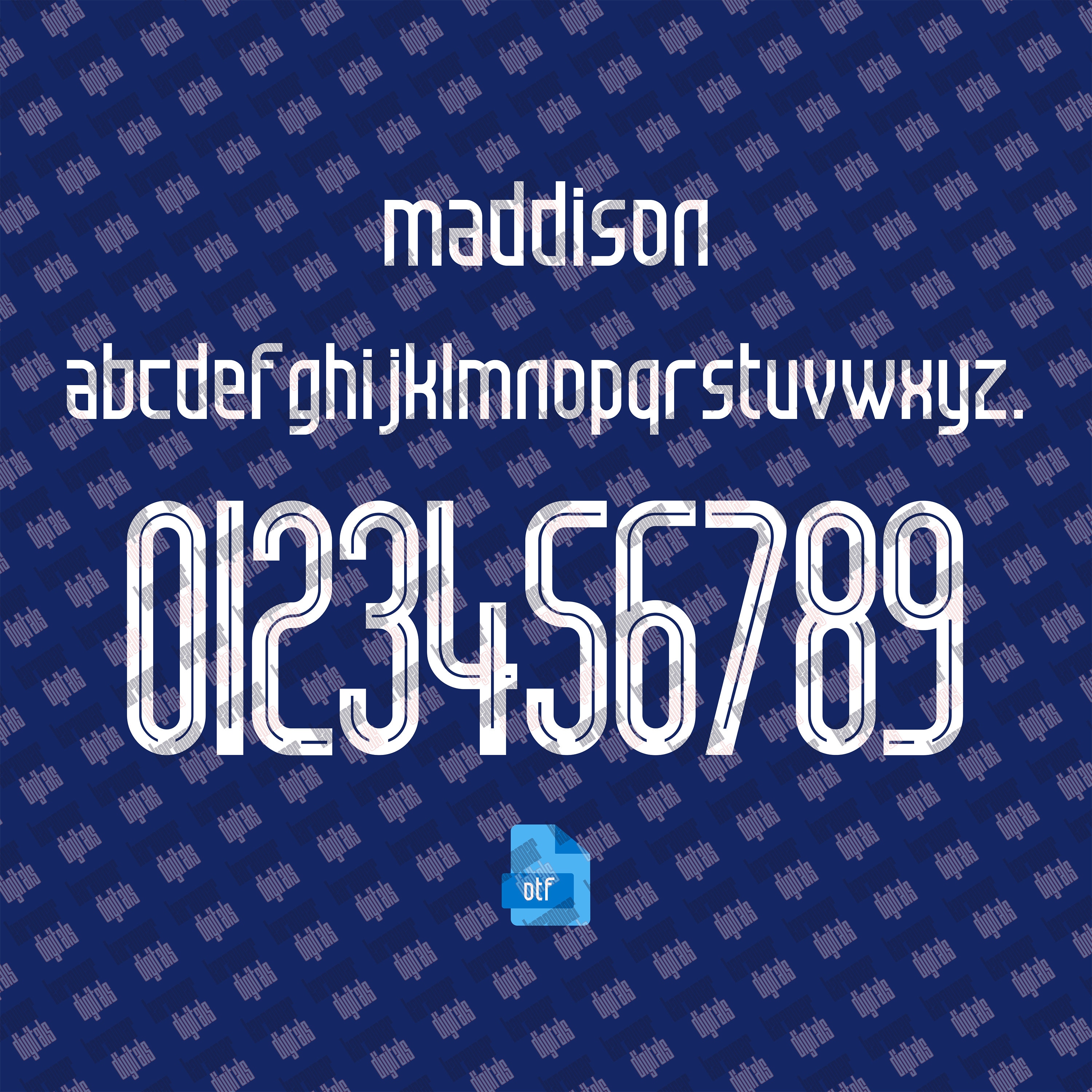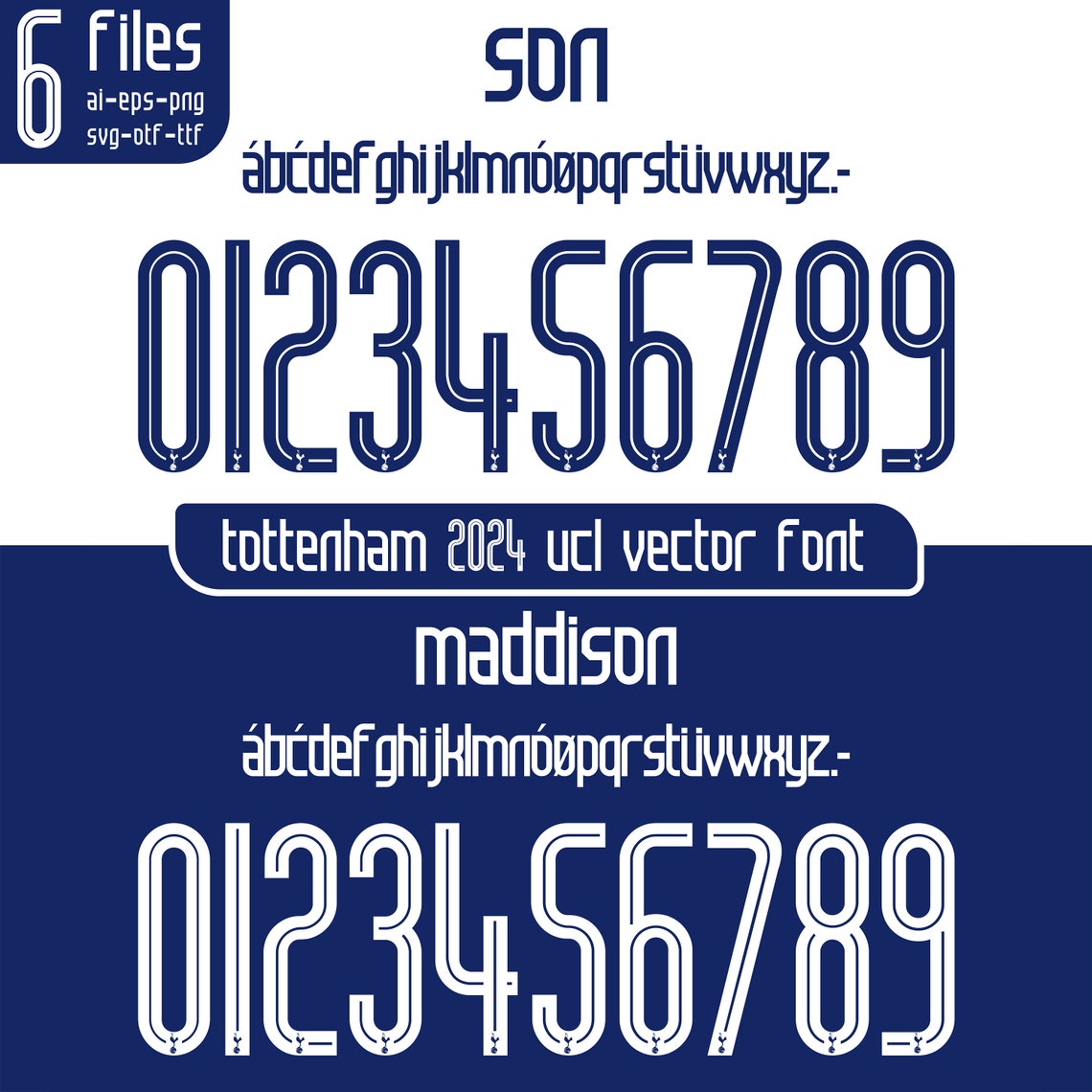
Tottenham Hotspur Font
Tottenham Hotspur Font - The font used for tottenham hotspur f.c. It feels like a sharp,. Tottenham hotspurs font, anyone know? Created exclusively for the client, this. Logo is tottenham hotspur, which is a display sans. Overall, the new display font looks more modern, edgy, and streamlined.
Overall, the new display font looks more modern, edgy, and streamlined. The font used for tottenham hotspur f.c. It feels like a sharp,. Logo is tottenham hotspur, which is a display sans. Tottenham hotspurs font, anyone know? Created exclusively for the client, this.
It feels like a sharp,. The font used for tottenham hotspur f.c. Logo is tottenham hotspur, which is a display sans. Tottenham hotspurs font, anyone know? Created exclusively for the client, this. Overall, the new display font looks more modern, edgy, and streamlined.
The font used for tottenham hotspur f.c. Created exclusively for the client, this. Logo is tottenham hotspur, which is a display sans. It feels like a sharp,. Overall, the new display font looks more modern, edgy, and streamlined.
Logo is tottenham hotspur, which is a display sans. Overall, the new display font looks more modern, edgy, and streamlined. Created exclusively for the client, this. The font used for tottenham hotspur f.c. Tottenham hotspurs font, anyone know?
Logo is tottenham hotspur, which is a display sans. Overall, the new display font looks more modern, edgy, and streamlined. The font used for tottenham hotspur f.c. Tottenham hotspurs font, anyone know? Created exclusively for the client, this.
Overall, the new display font looks more modern, edgy, and streamlined. The font used for tottenham hotspur f.c. Created exclusively for the client, this. Tottenham hotspurs font, anyone know? Logo is tottenham hotspur, which is a display sans.
Created exclusively for the client, this. The font used for tottenham hotspur f.c. Tottenham hotspurs font, anyone know? Logo is tottenham hotspur, which is a display sans. It feels like a sharp,.
Overall, the new display font looks more modern, edgy, and streamlined. It feels like a sharp,. Logo is tottenham hotspur, which is a display sans. Tottenham hotspurs font, anyone know? The font used for tottenham hotspur f.c.
Created exclusively for the client, this. The font used for tottenham hotspur f.c. Overall, the new display font looks more modern, edgy, and streamlined. Logo is tottenham hotspur, which is a display sans. Tottenham hotspurs font, anyone know?
Overall, the new display font looks more modern, edgy, and streamlined. Created exclusively for the client, this. The font used for tottenham hotspur f.c. It feels like a sharp,. Tottenham hotspurs font, anyone know?
Tottenham hotspurs font, anyone know? Logo is tottenham hotspur, which is a display sans. The font used for tottenham hotspur f.c. It feels like a sharp,. Created exclusively for the client, this.
Tottenham Hotspurs Font, Anyone Know?
The font used for tottenham hotspur f.c. Overall, the new display font looks more modern, edgy, and streamlined. Logo is tottenham hotspur, which is a display sans. Created exclusively for the client, this.